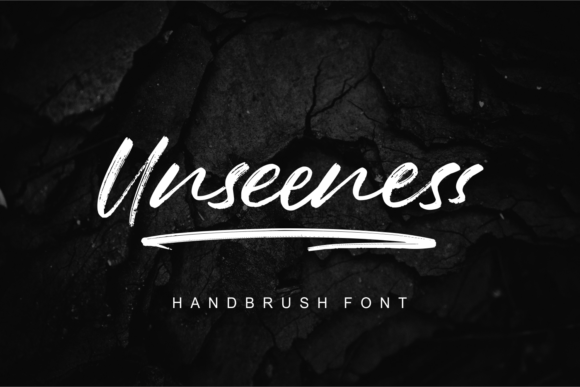
Welcome to the world of Unseeness Handbrush, where elegance and uniqueness collide! This captivating script font, brought to life by the creative genius of zamjump, is set to revolutionize your design horizons.
Crafted with meticulous care, Unseeness Handbrush embodies the essence of sophistication and style. Its loose grooves, reminiscent of the strokes of a master calligrapher, dance across the page with a fluidity that is both mesmerizing and alluring.
Immerse yourself in its versatility and let your creativity soar. Whether your imagination calls for a striking logo or a captivating social media post, this brush font delivers in spades. Its ability to elevate any project is unparalleled, transforming ordinary designs into extraordinary masterpieces.
Step into the realm of Unseeness Handbrush and unveil a world of possibilities. Let its charm and sophistication leave an unforgettable impression on your audience. From product packaging that exudes personality to merchandise that speaks volumes about your brand, this font is the key to unlocking your creative vision.